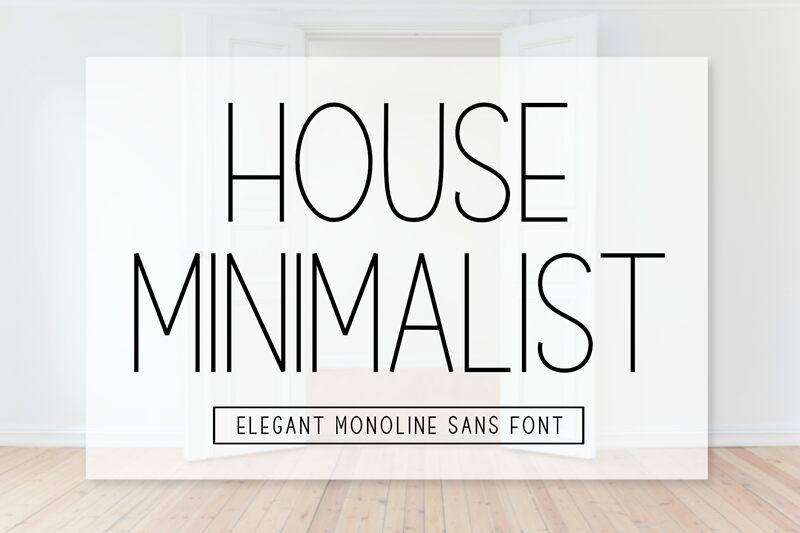
House Minimalist
House Minimalist, a creation from the studios of AV Type, is a display font that exudes modernity and sleekness. Crafted with a light weight and condensed width, this font stands out for its clean lines and uncluttered appearance. The minimalist design speaks to contemporary sensibilities, making it an ideal choice for branding, editorial work, and sophisticated web design where clarity and elegance are paramount.
The aesthetic appeal of House Minimalist lies in its delicate balance between functionality and style. Its slender profile allows for excellent readability while maintaining an air of exclusivity. The subtle sophistication inherent in the typeface ensures that it can confidently take center stage or act as a complementary element in a variety of creative projects.
Whether you're looking to evoke high-end luxury in your designs or aiming for a refined simplicity that cuts through the noise, House Minimalist offers versatility without sacrificing character. This font is not just a typographic choice—it's an artistic statement tailored for those who appreciate the power of nuanced design.